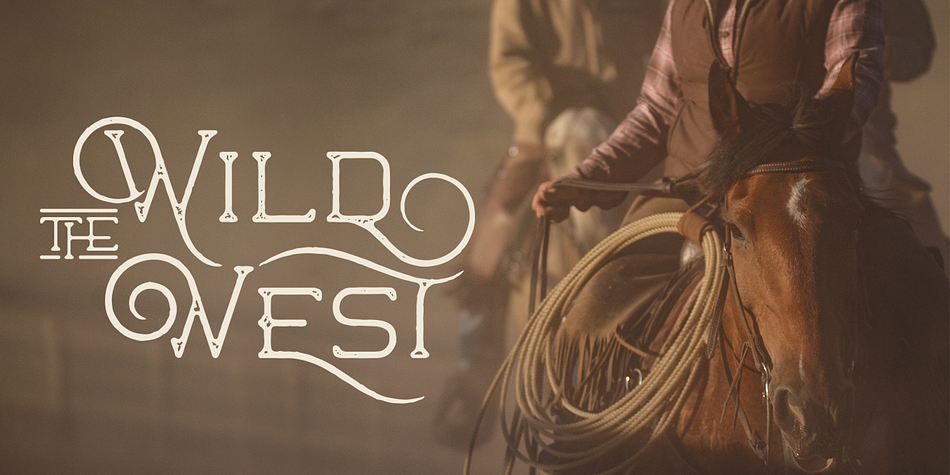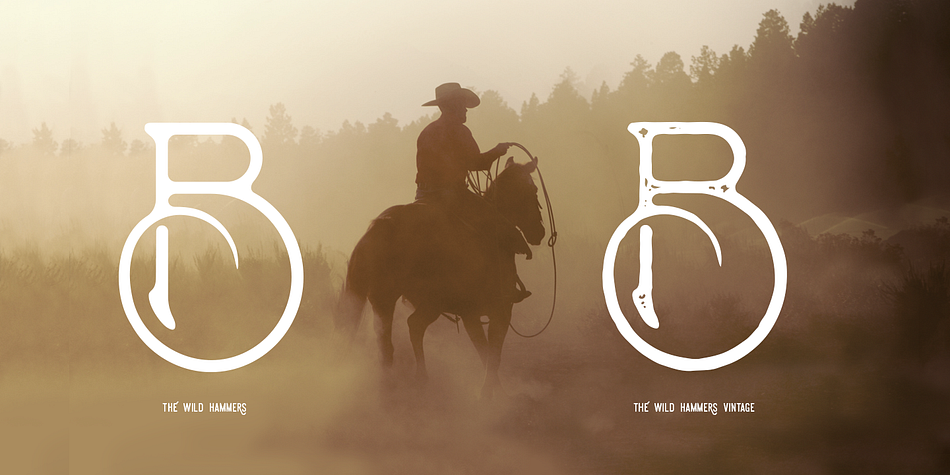
The Wild Hammers is a western and display slab font family. This typeface has three styles and was published by Burntilldead.
Say hi to The Wild Hammers; An American flavor typeface. Really easy to use for create logo, display font, t-shirt, leather product and any classic or modern general design.